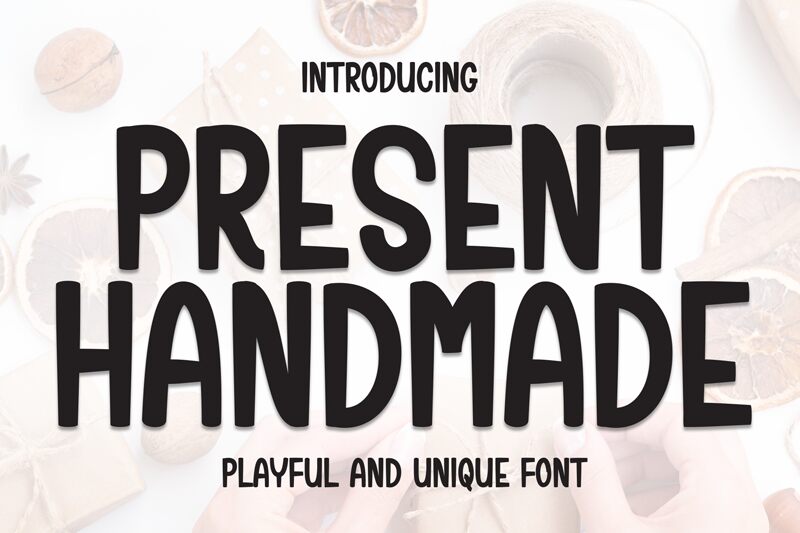
Present Handmade font by Scratchones is a free cartoon style font with a fun and lively look. A minimalistic concept in its many aspects, Present is made of symbols as simple as possible. Despite this, the final picture is both complete and interesting. Basic geometric shapes like rectangles sharing guards with tiny circles are there for anybody who looks carefully.
Every word you type with Present will seamlessly inherit its incredible strange and exciting feature. This makes it perfect for stationary projects, titles, badges, posters, and any other print work piece of your interest.